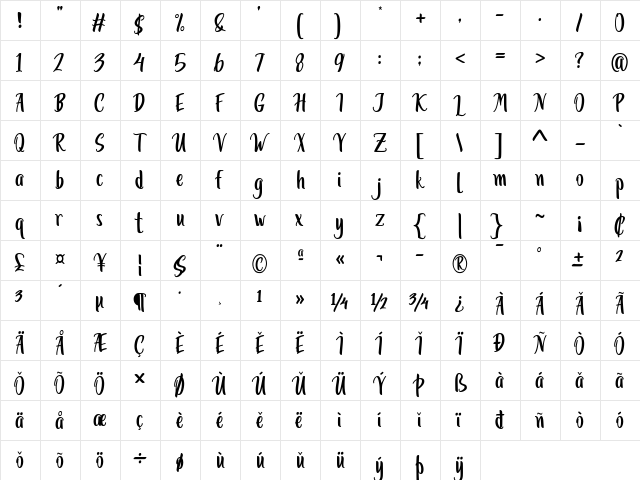
Miss Clara Regular
| Foundry | 7NTypes |
| Designer | Dreamink; Dani; Situjuh Nazara |
Design Context for Miss Clara Typeface
Miss Clara is a composed and adaptable typeface that performs quietly and consistently across a wide range of design contexts.